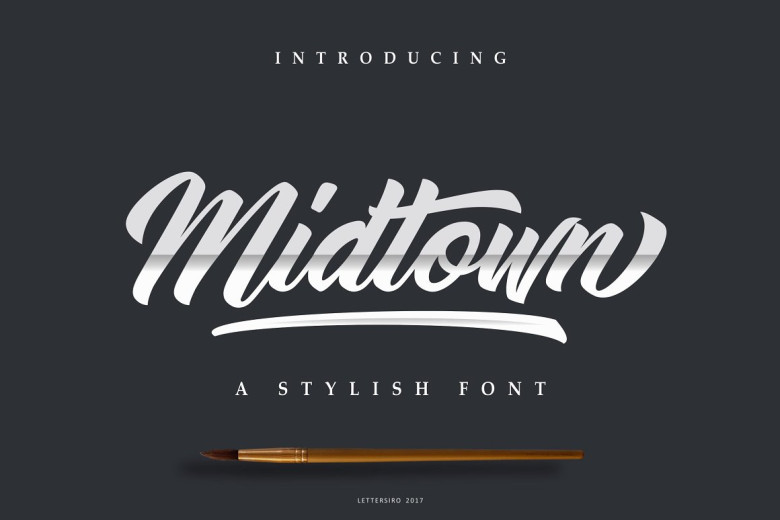
Midtown Font
Midtown font is modern handmade font, dinamic and also has beautiful opentype features. Midtown font also support multilanguange. Midtown font is great for Branding, Logo Design, Lettering,Logotype, Clothing, Poster, magazine and other design project.
Midtown Calligraphy Font